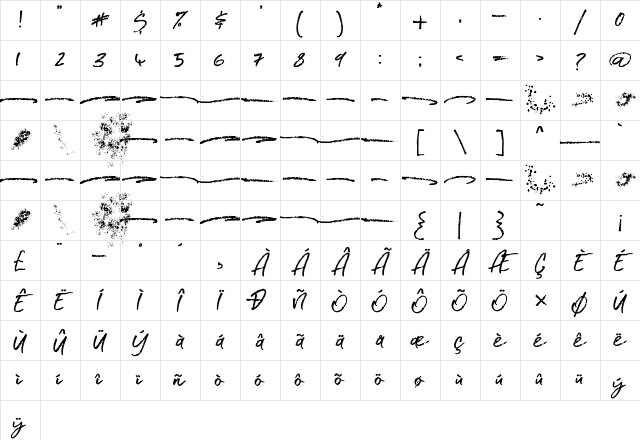
Serial Catch Extras Black Regular
Serial Catch Extras Black Family
Design Context for Serial Catch Extras Black
Serial Catch Extras Black is a composed and adaptable typeface that performs quietly and consistently across a wide range of design contexts.